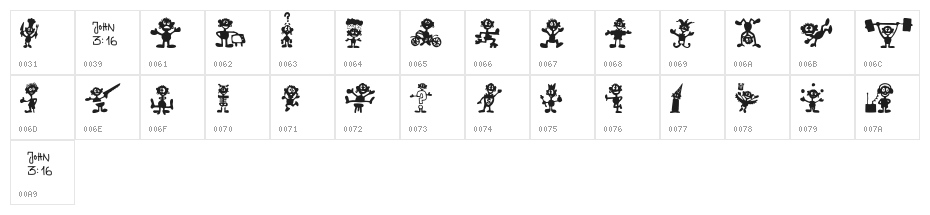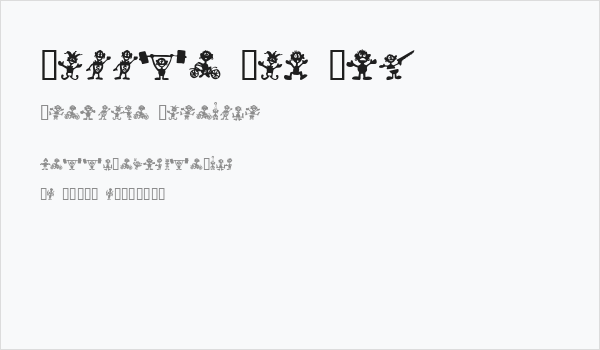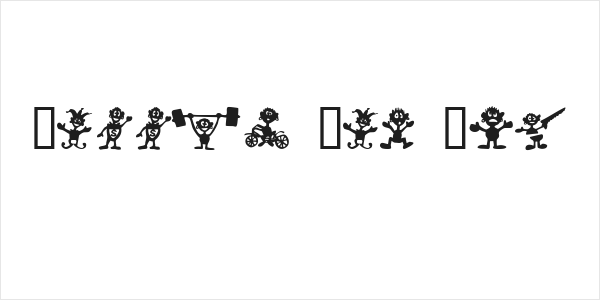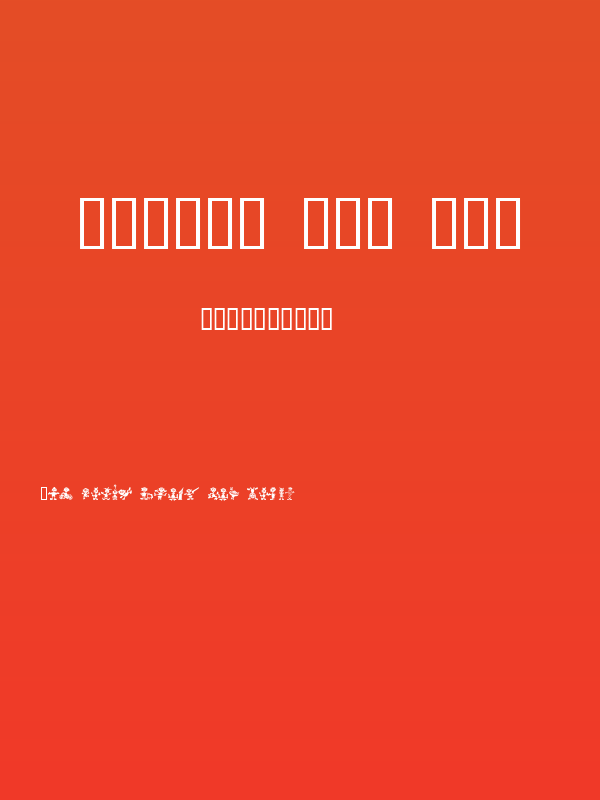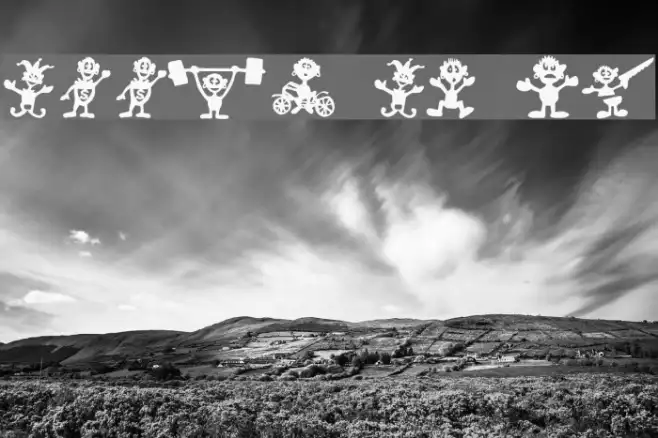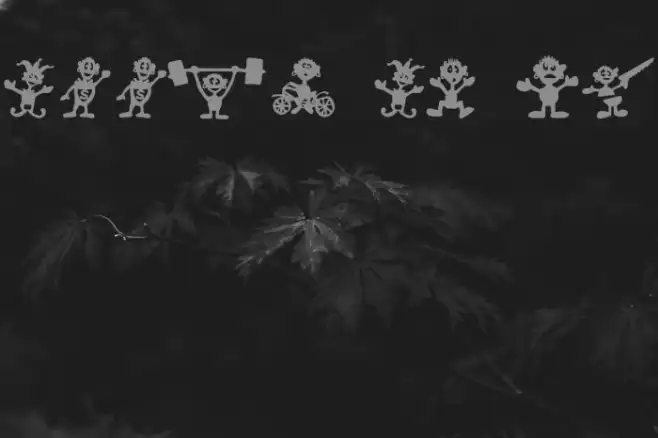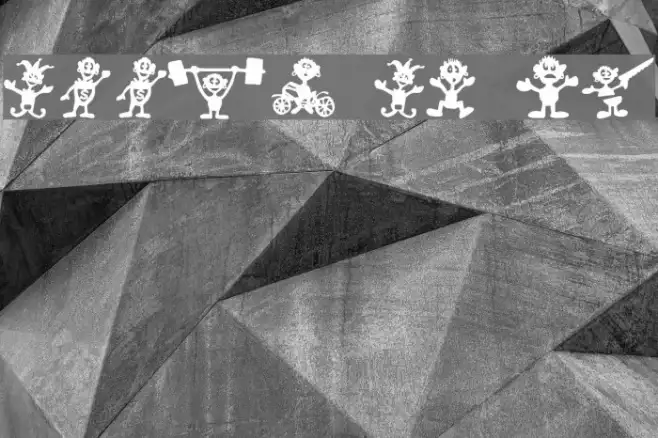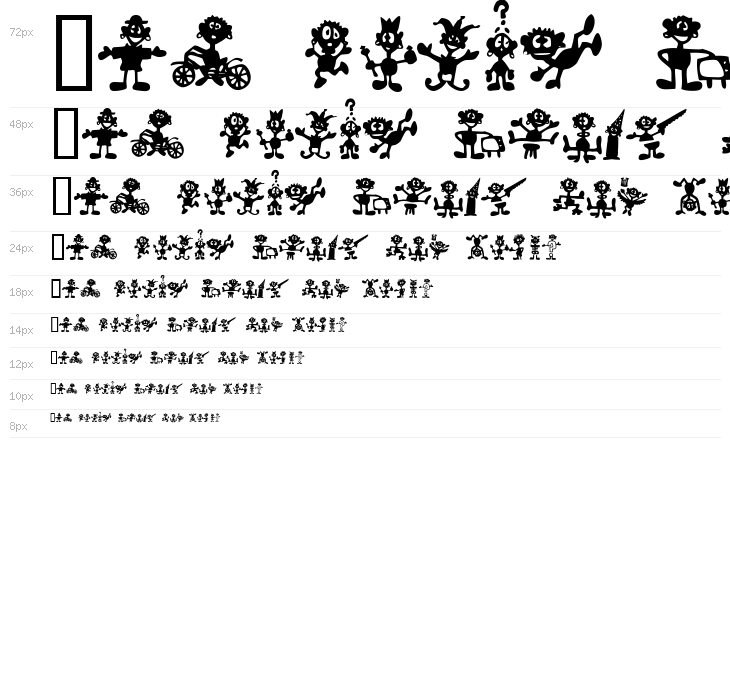
Little Big Man Font
Little Big Man Description
This font is a playful and whimsical collection of cartoon-like characters, each representing a different letter or symbol. The characters are highly stylized, featuring exaggerated expressions and poses that convey a sense of fun and creativity. The design is reminiscent of doodles or comic strip art, with bold outlines and a hand-drawn feel. Each character is unique, adding a lively and dynamic element to any text. The font is ideal for projects that require a lighthearted and informal touch, such as children's books, party invitations, or playful branding.
| Proposed Projects | Children's books, party invitations, playful branding, comic strips. |